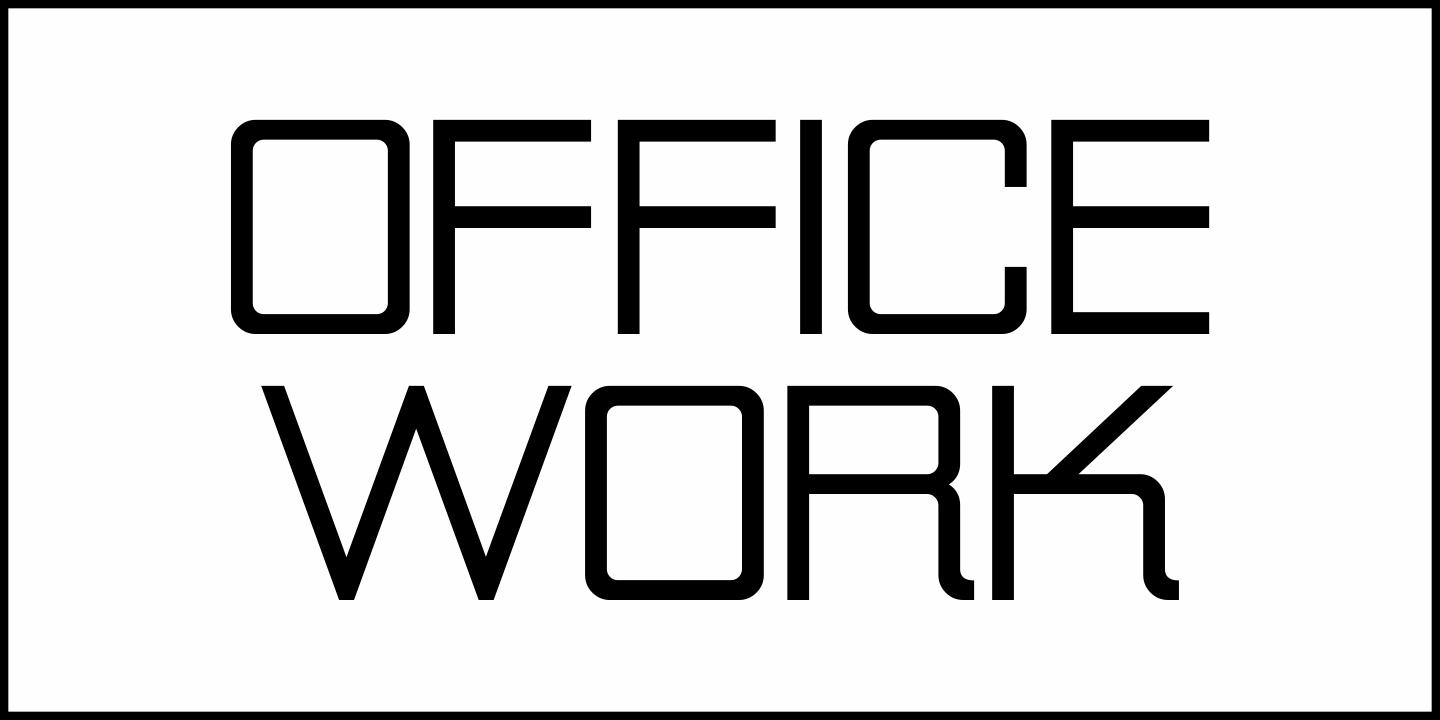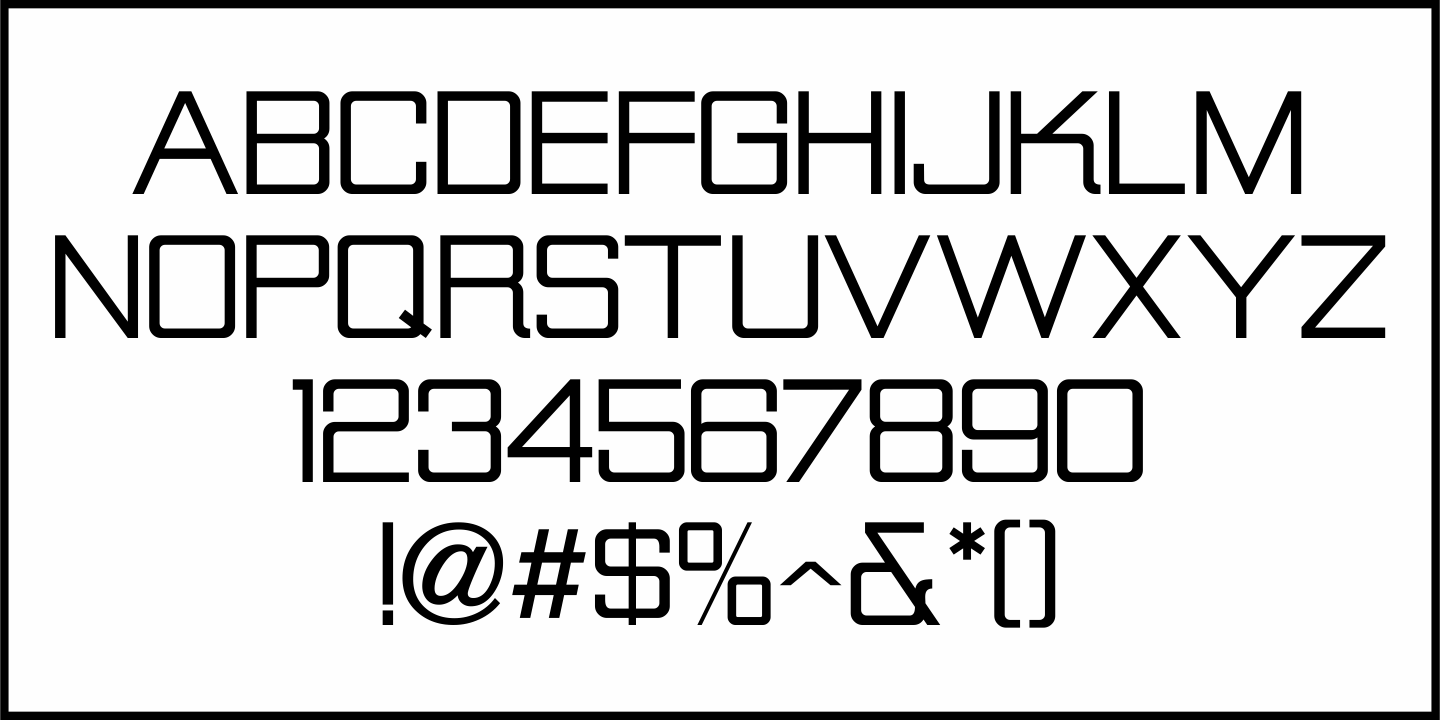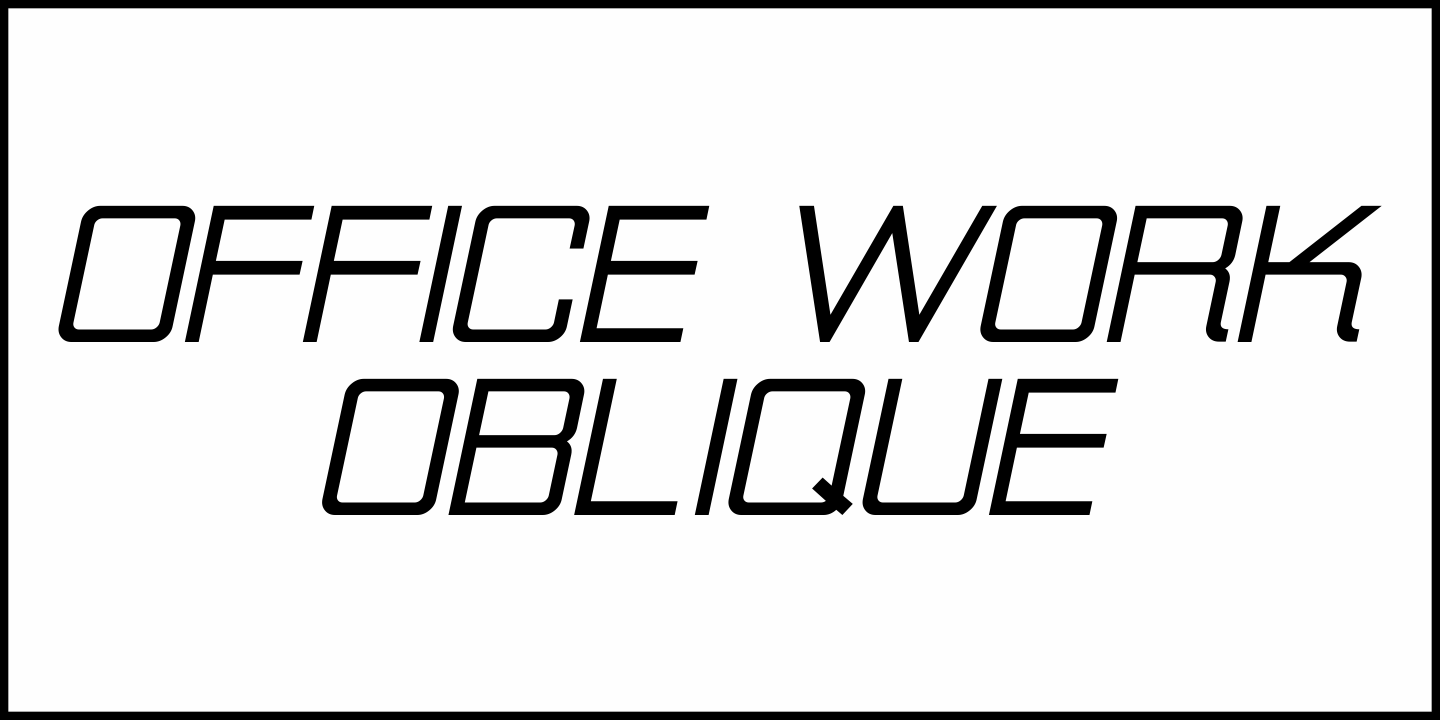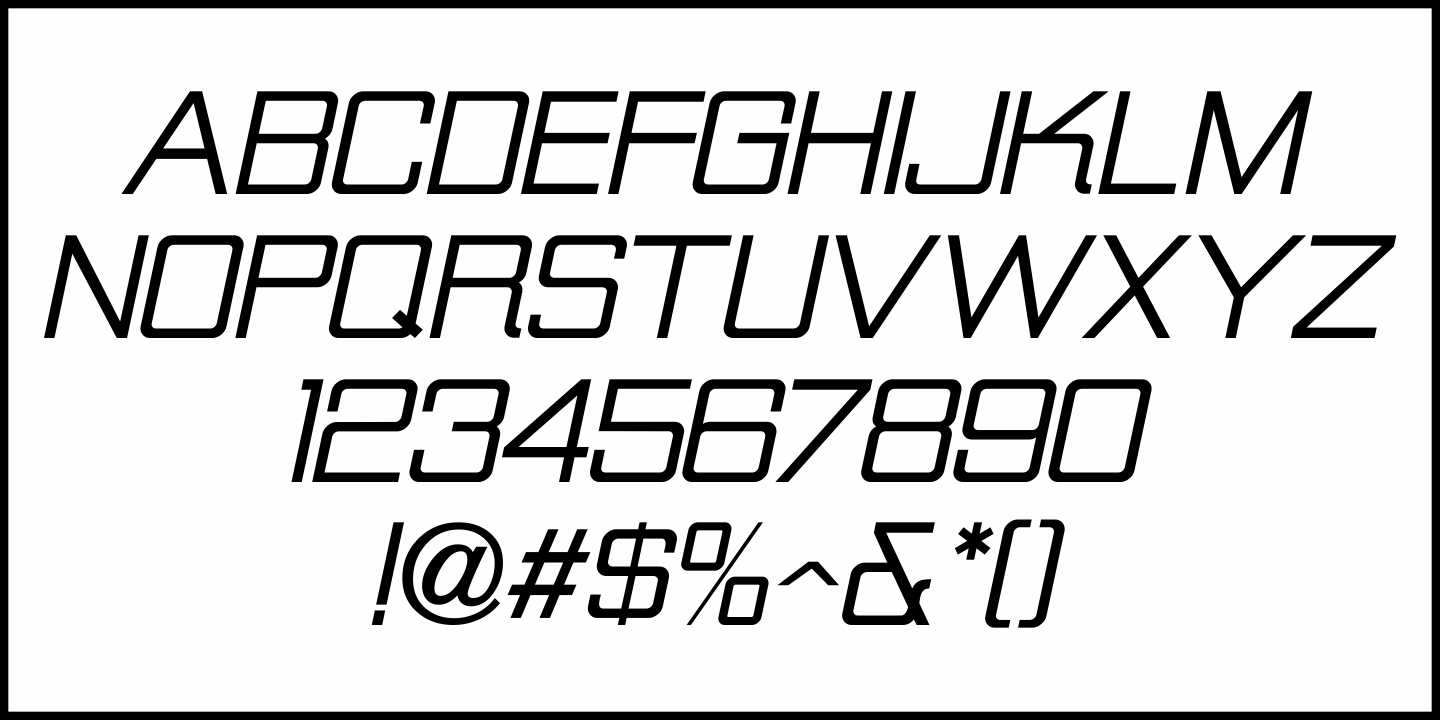
Office Work
The 1965 film “Mirage” had its titles and credits hand lettered in a simple, thin sans serif with rounded corners and an overall square design.
This is now available digitally as Office Work JNL, in both regular and oblique versions.
Office Work JNL Regular by Jeff Levine Fonts